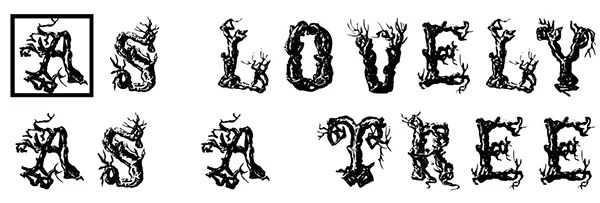
Fonts That Look Like Trees. Leaf fonts are inspired by tree leaves such as palm trees, cercis siliquastrum, plantain, willow, flower leaves, and so many green leaves. Click to find the best 5 free fonts in the palm trees style.
If we could deliver to you scratch and sniff fonts, these would smell like burnt marshmallows, campfire smoke, slightly mildewy canvas, cracked leather, a dusty sweaty hiker, and the sequoia trees of yosemite national park. I am getting married soon and we want to make a logo that looks like a j + d with a heart around a it and want the font to be something that looks like it was carved in the side of a tree (like young rebels do). Your design will have a unique look with this font, get it!
Font That Looks Like Letters Carved In A Tree #1.
Every font is free to download! Click to find the best 133 free fonts in the tree style. It has a real vintage feel to it.
I Am Getting Married Soon And We Want To Make A Logo That Looks Like A J + D With A Heart Around A It And Want The Font To Be Something That Looks Like It Was Carved In The Side Of A Tree (Like Young Rebels Do).
Font that looks like letters carved in a tree #1. Every font is free to download! Font that looks like letters carved in a tree #1.
Looking for palm trees fonts? Whether it’s cold winter, hot summer, or colorful autumn and beautiful spring, some leaves have many medicinal properties like mint, and these fonts serve as excuses for product labels, the logo of. When life gets too busy or chaotic, there’s nothing like being back into the wilderness.